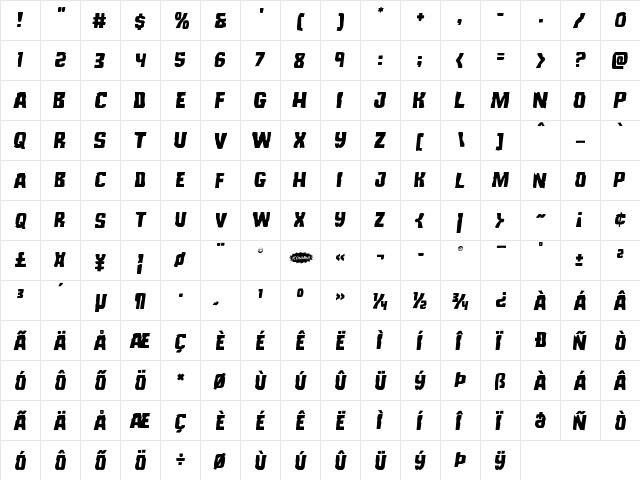
Monster Hunter Semi-Italic Semi-Italic
| Style | Semi-Italic |
Design Context for Monster Hunter Semi-Italic Typeface
Monster Hunter Semi-Italic offers clean, dependable letterforms without strong stylistic allegiance, making it a practical choice for designers who need flexibility. The slanted form adds forward momentum and visual energy.
Pro Tip: Try Monster Hunter Semi-Italic for annotation and caption copy alongside an upright companion — the contrast in angle creates a dynamic but ordered typographic system.